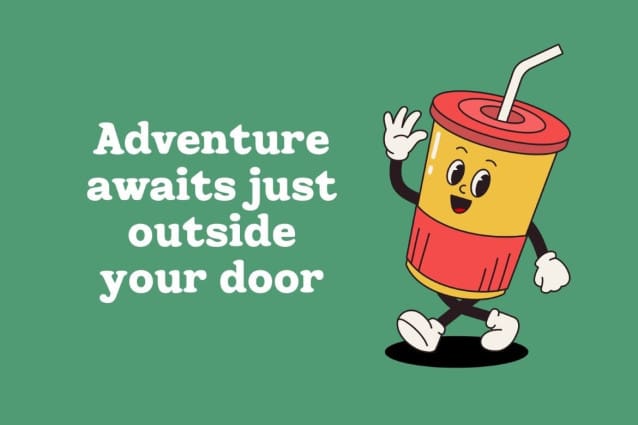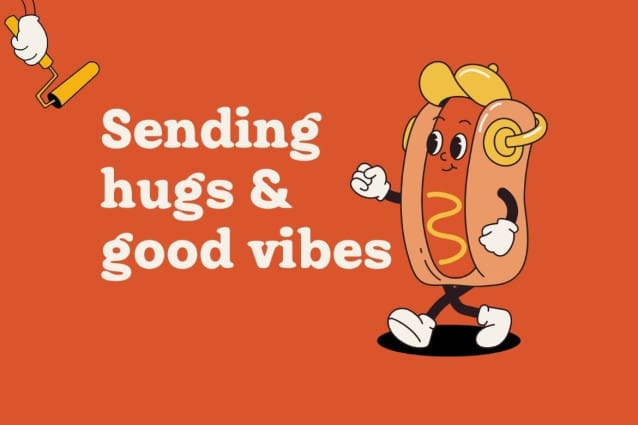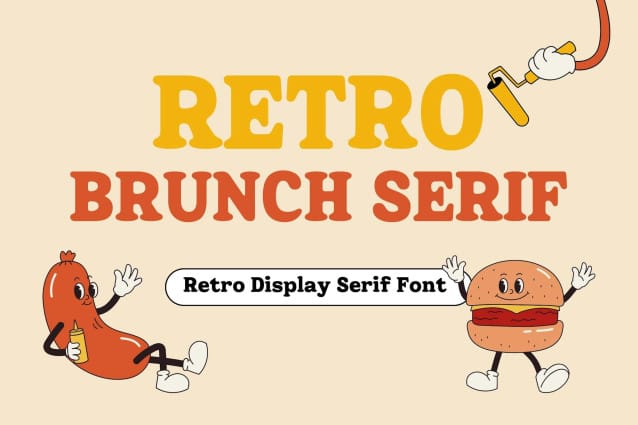
Retro Brunch Serif Font
Retro Brunch Serif Font, the ultimate retro display font that brings a healthy dose of vintage charm. This font effortlessly captures the essence of the past, making it ideal for retro-inspired projects, posters, and brands. With its timeless serifs and bold, distinctive characters, Retro Brunch Serif adds a touch of classic sophistication to any design. Enhance your designs and take a trip down memory lane with the deliciously elegant RetroBrunch Serif font